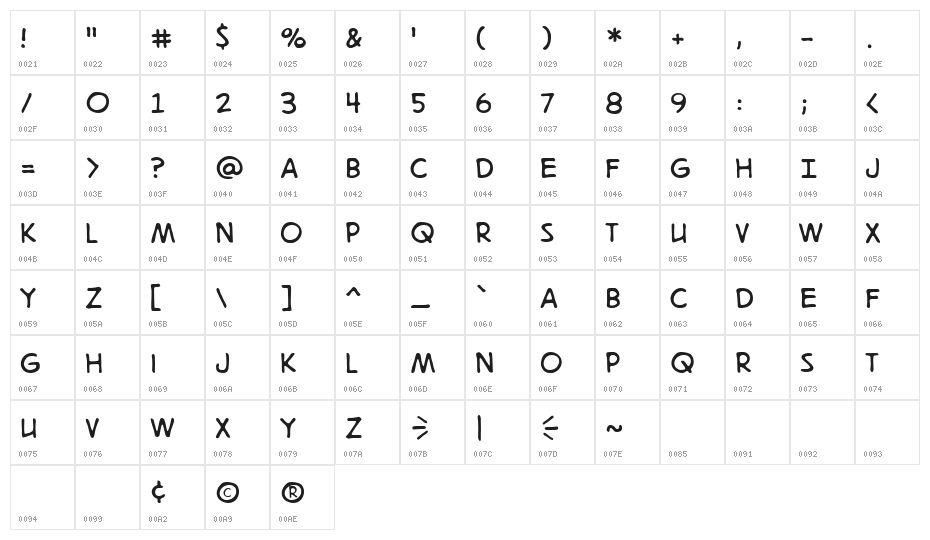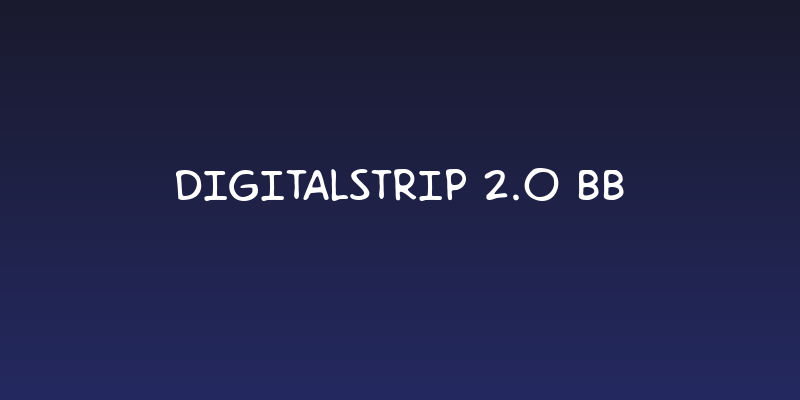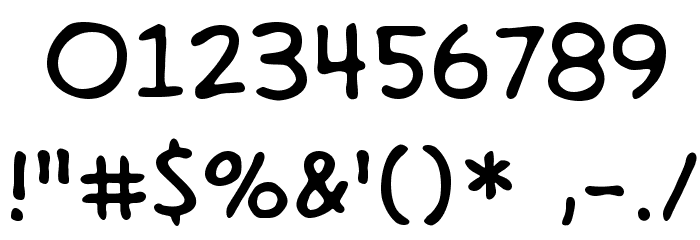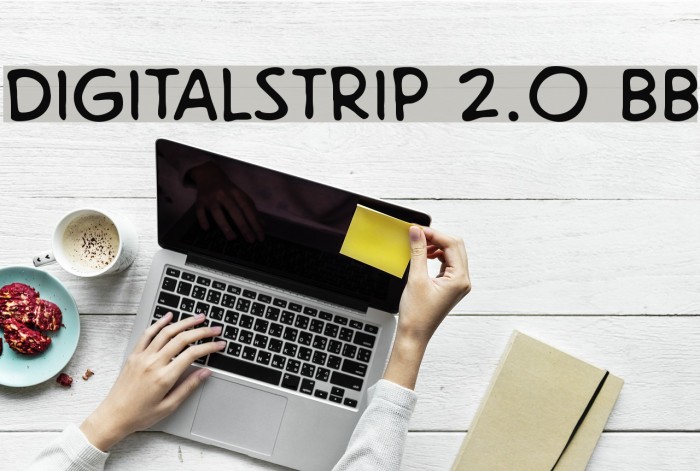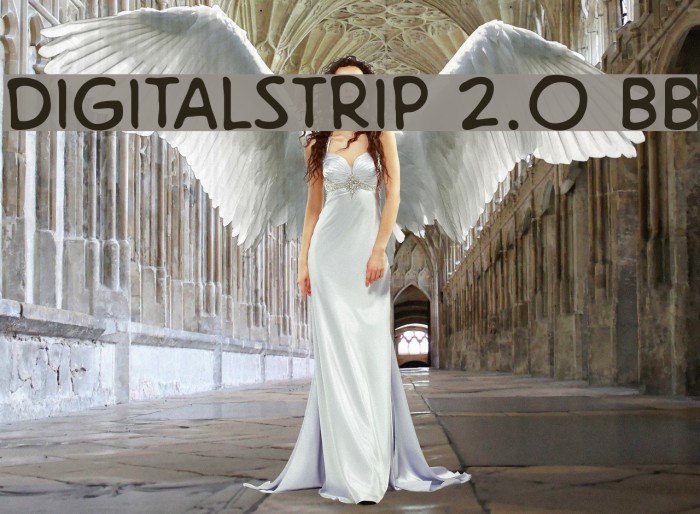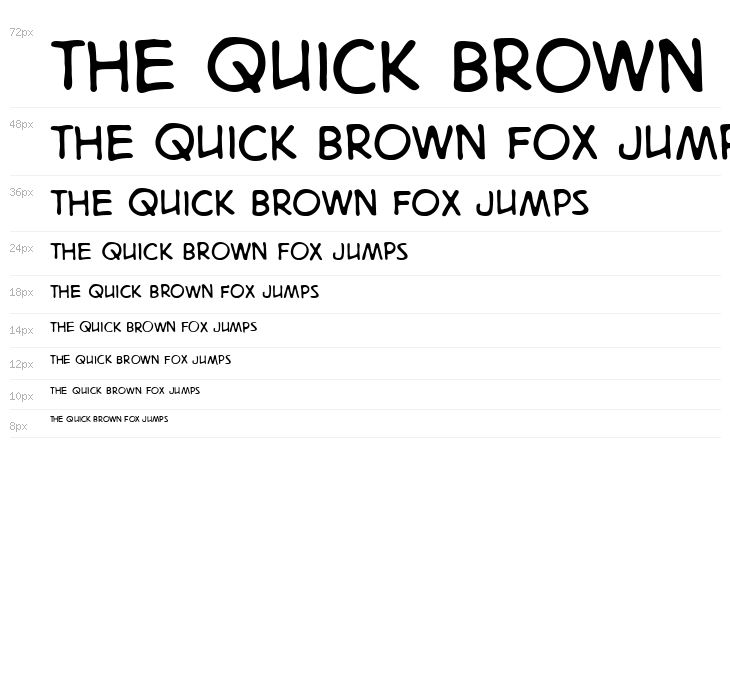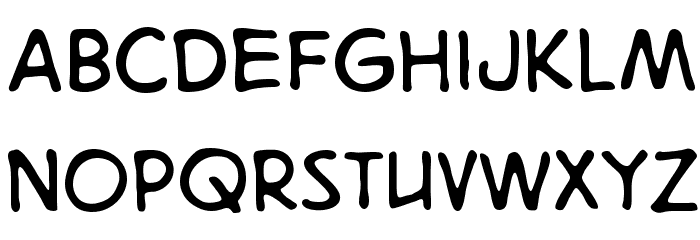
DigitalStrip 2.0 BB Font
DigitalStrip 2.0 BB Description
This font features a playful and informal style, characterized by its rounded and slightly irregular letterforms. The strokes are consistent in thickness, giving it a uniform appearance, yet the slight variations in shape add a hand-drawn feel. The characters are well-spaced, providing a clean and readable look. The font includes both uppercase and lowercase letters, numerals, and a variety of special characters, making it versatile for different uses. Its casual and friendly design makes it suitable for projects that aim to convey a sense of fun and approachability.
| Proposed Projects | Ideal for comic books, children's books, casual branding, and playful posters. |